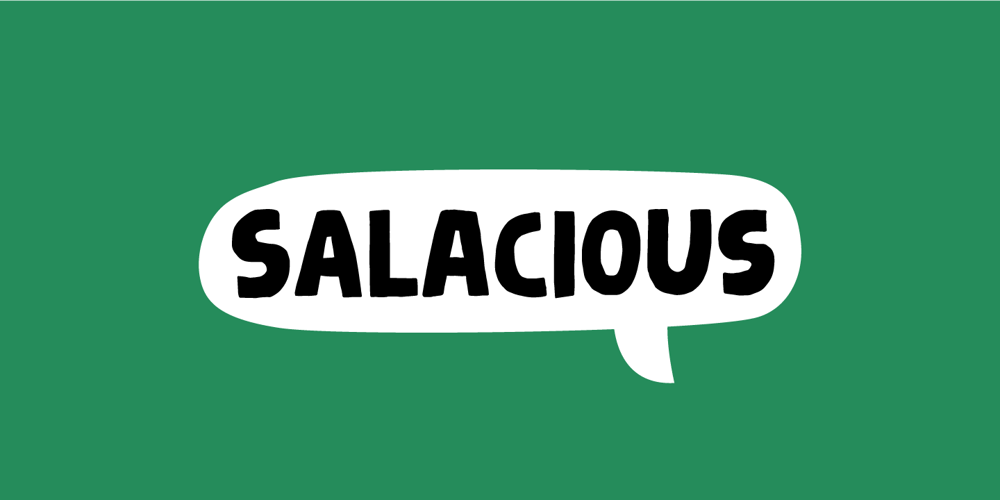
Salacious
Salacious font
Salacious Font Family was designed by Jakob Fischer and published by PizzaDude.dk. Salacious contains 2 styles and family package options. Salacious is my soft/rough all-caps font, inspired by both comics and grafitti. The weight and width of the letters varies a bit. Not in a disturbing way, but more in a lively and organic way. I’ve added 5 (slightly) different versions of each letter (which automatically cycles as you type!) The letter shapes are a bit rough, due to the fact that they are handmade, and all corners are rounded, which gives a nice soft look!